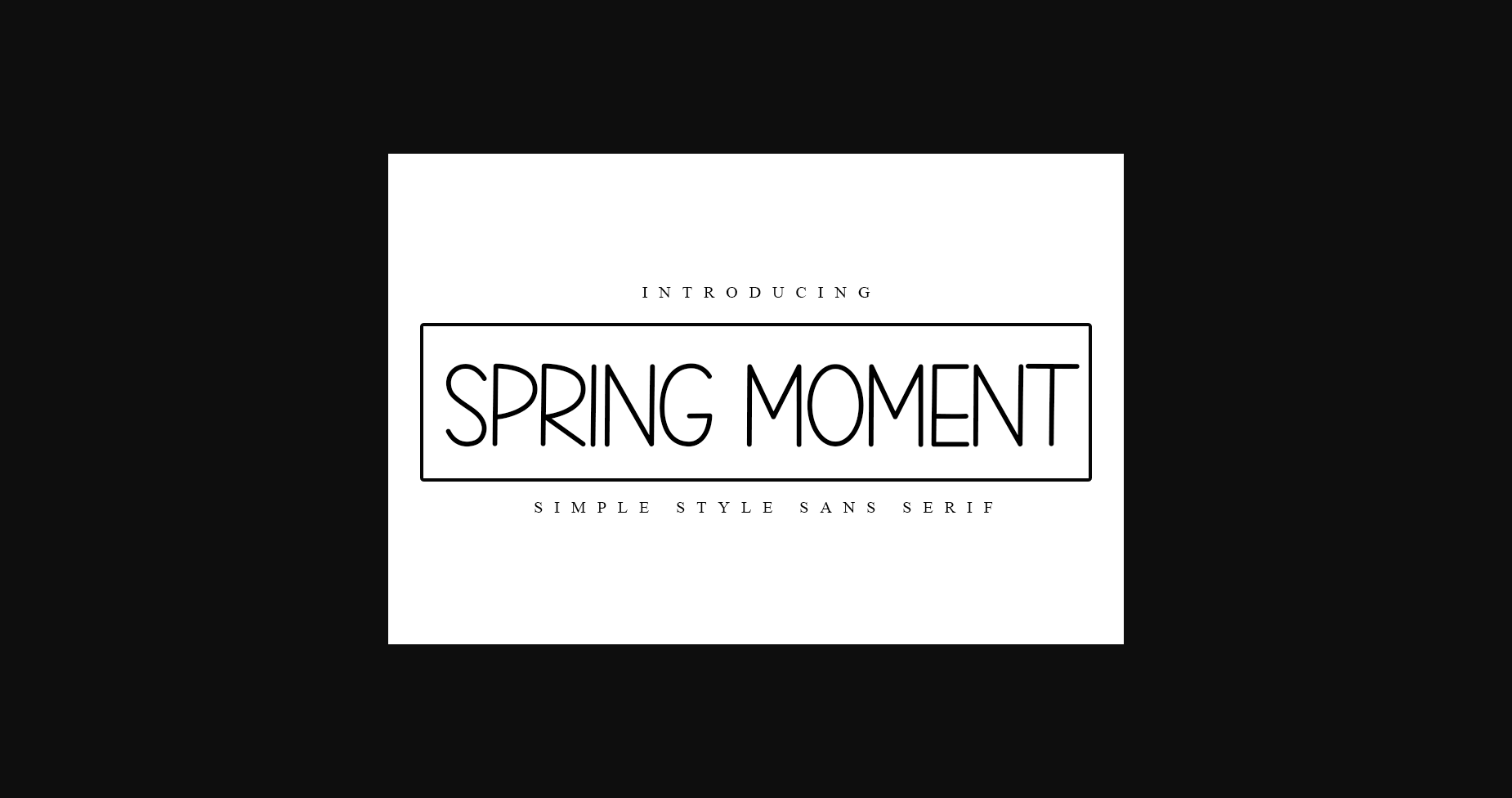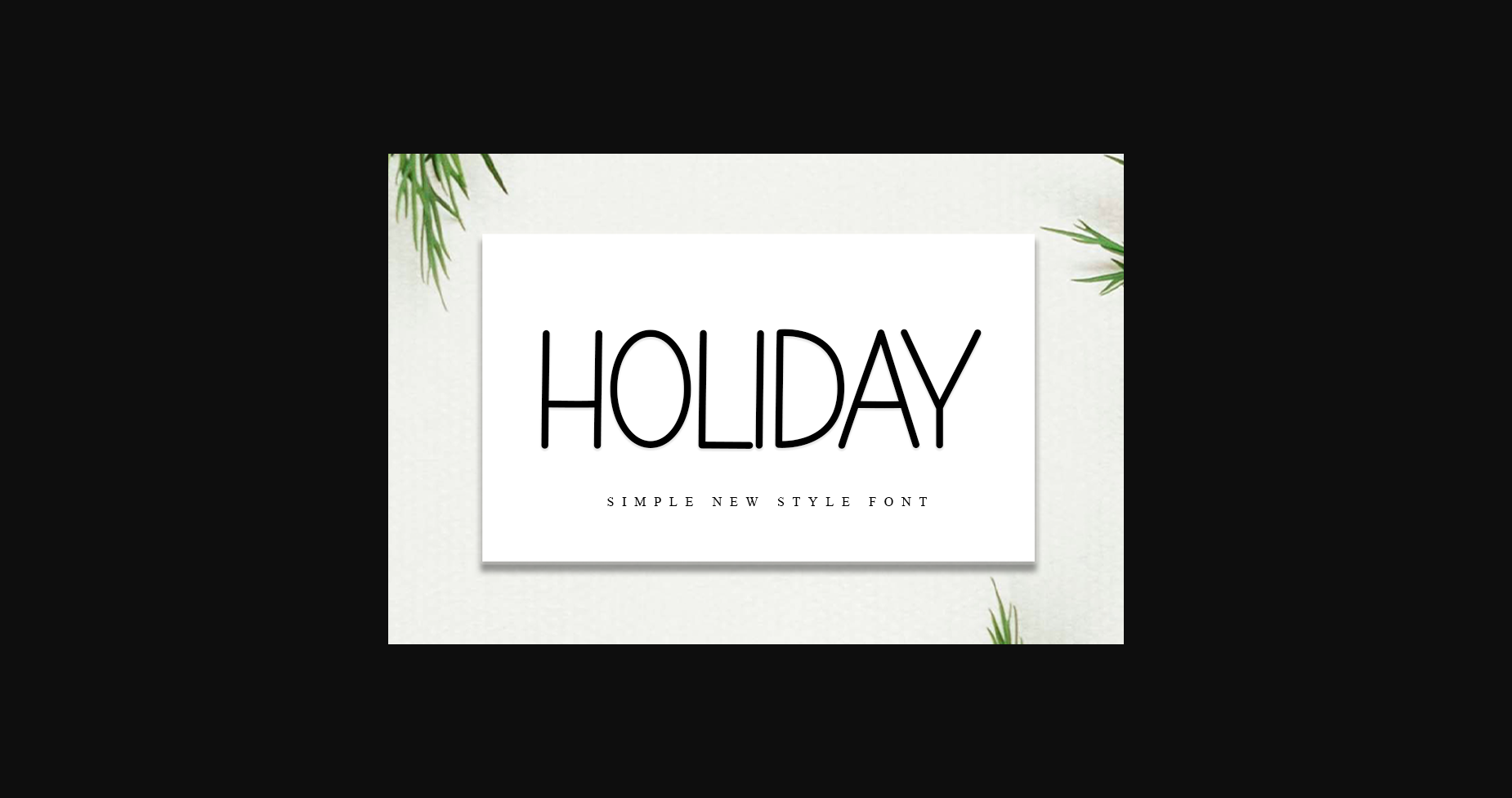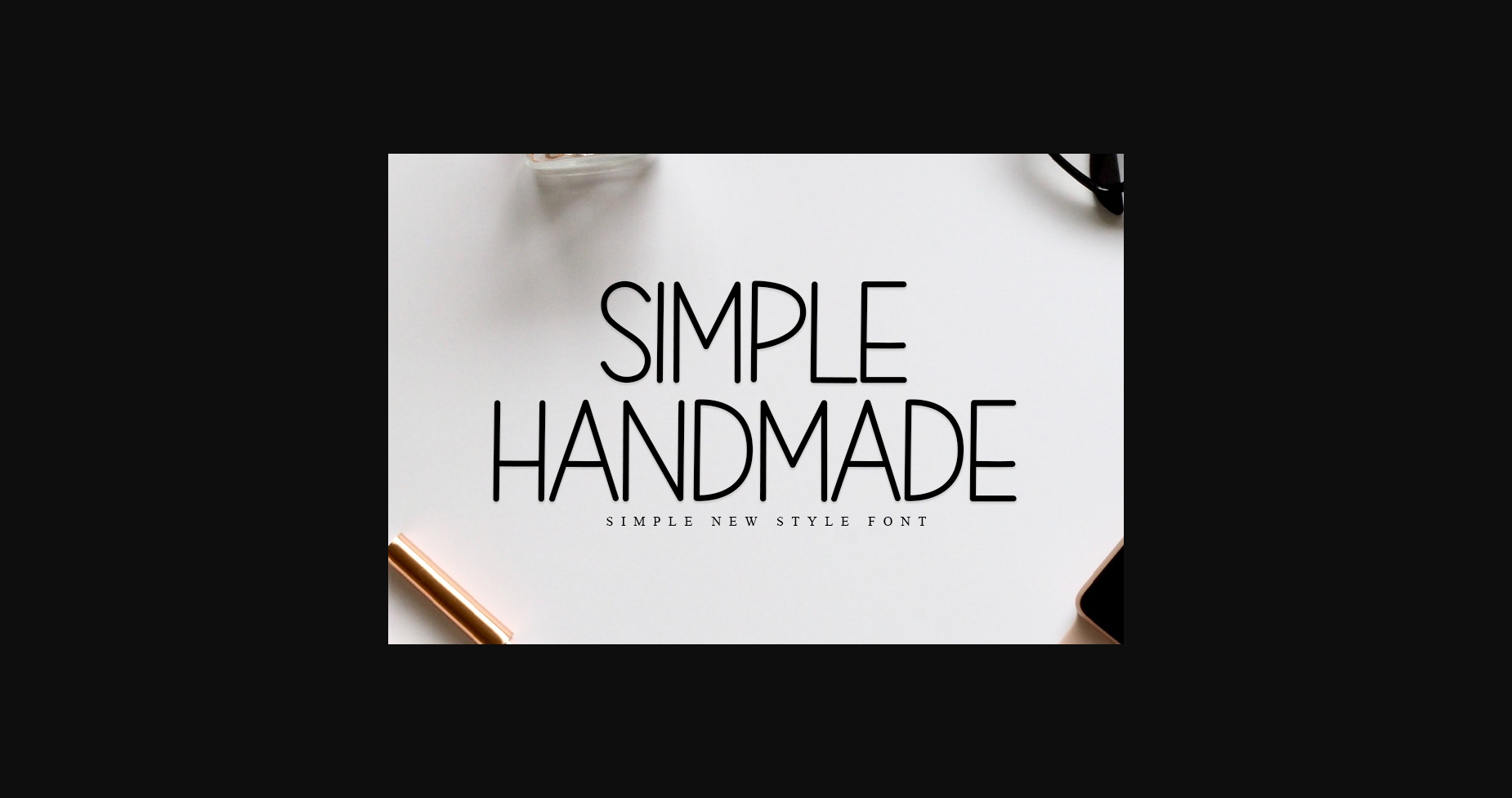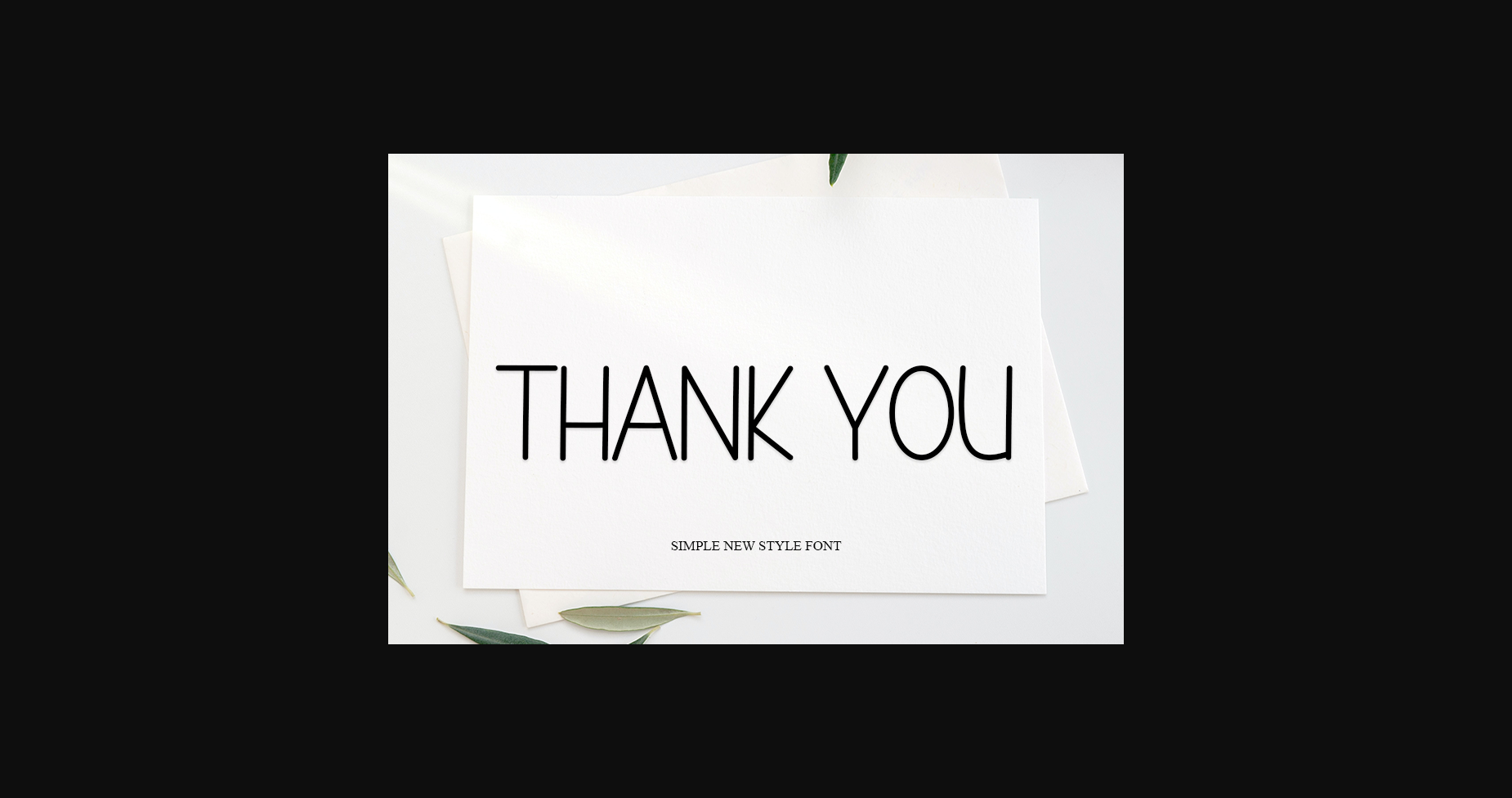
Spring Moment Font
About Spring Moment Font
Spring Moment is a cool and modern Sans Serif font. Whether you’re using it for crafts, digital design, presentations, or making greeting cards, this font has the potential to become your favorite go-to font, no matter the occasion